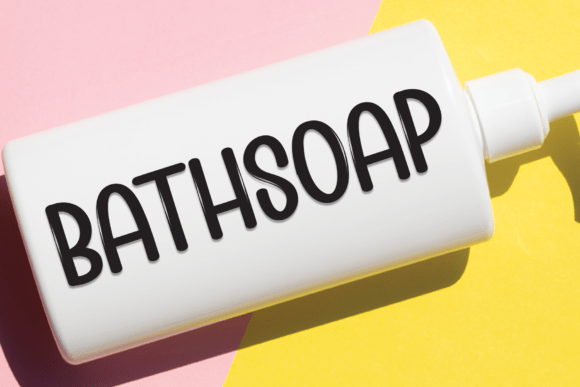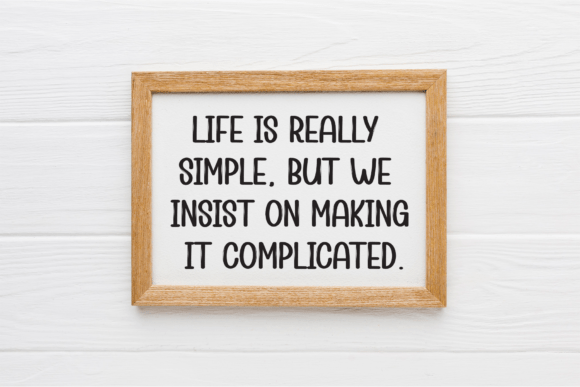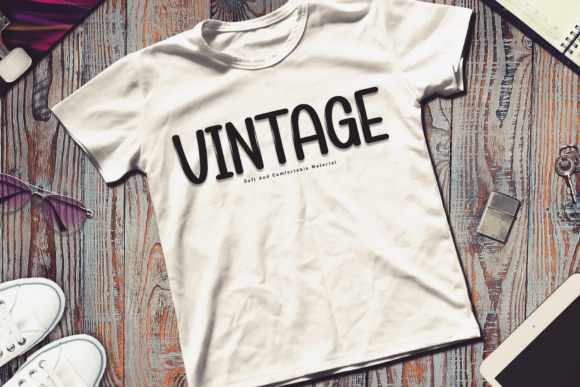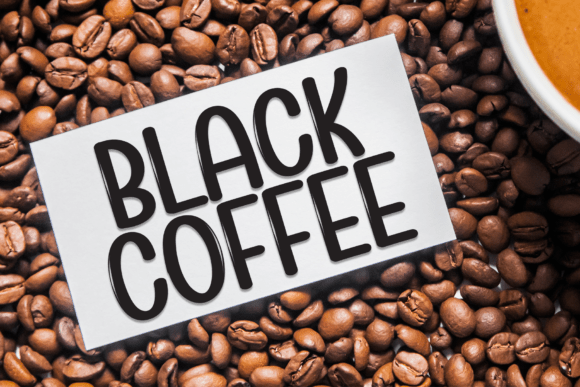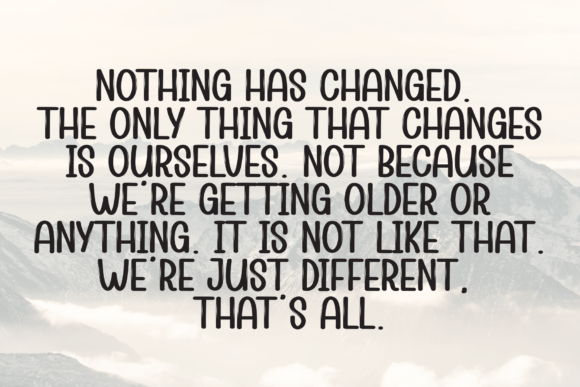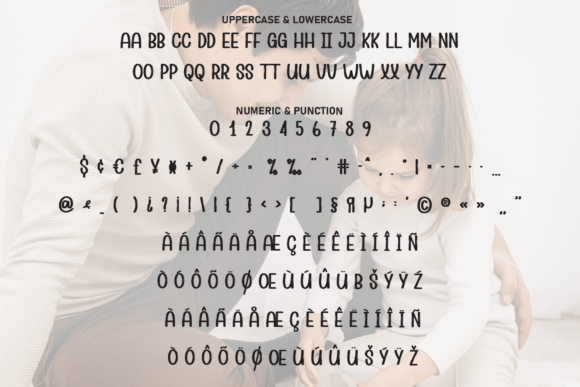
Enter the Daddy Lovely Font, a sweet and friendly handwritten font that’s as versatile as it is charming. This natural and unique style makes it the perfect addition to a wide range of designs, limited only by your imagination. Whether you’re a seasoned designer or just starting out, the Daddy Lovely Font is an invaluable tool in your creative arsenal, waiting to help you craft designs that capture hearts and inspire imagination.
Daddy Lovely Font Key Features
- Unique Characteristics: The font features a unique, hand-drawn design with a mix of serif and sans-serif elements, giving it a distinctive and eye-catching look.
Daddy Lovely Font Review
I recently had the chance to work with the Daddy Lovely Font, and I’m excited to share my honest thoughts on this unique font.
- The Daddy Lovely Font has a distinct and playful feel that’s perfect for creating eye-catching headings and titles.
- The font’s irregularities and imperfections add a touch of handmade charm that’s hard to find in more polished fonts.
- The font’s weight and spacing are well-balanced, making it easy to read and use in a variety of contexts.
- The font’s irregularities can sometimes make it difficult to read, especially at smaller font sizes.
- The font’s uniqueness can also be a double-edged sword – while it’s perfect for certain projects, it may not be suitable for more traditional or formal designs.
- The font’s character set is limited, which may make it difficult to use in certain languages or for projects that require a wide range of characters.
The Daddy Lovely Font is a great choice for designers looking to add some personality and whimsy to their projects. While it may not be the best fit for every design, it’s definitely worth considering for projects that require a unique and playful touch.
Getting the Most Out of the Font
For optimal results, use the Daddy Lovely Font in conjunction with other playful and cursive fonts.
Experiment with different font sizes and styles to create a visually appealing design.
The Daddy Lovely Font is ideal for:
Children’s products and packaging
Wedding invitations and decorations
Food and beverage branding
What is the recommended font size for optimal readability with the Daddy Lovely Font?
The recommended font size for optimal readability with the Daddy Lovely Font is between 12pt and 24pt. This range provides a clear and legible reading experience, while also allowing for effective use in a variety of design contexts.